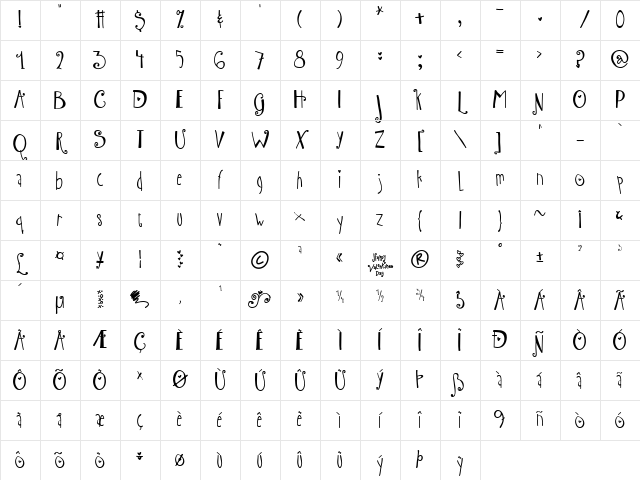
Austie Bost Wibbly Regular
Foundry: Austie Bost Fonts
Designer: Austin Owens
Design Context for Austie Bost Wibbly
Austie Bost Wibbly is a composed and adaptable typeface that performs quietly and consistently across a wide range of design contexts.
Who designed the Austie Bost Wibbly Regular font?